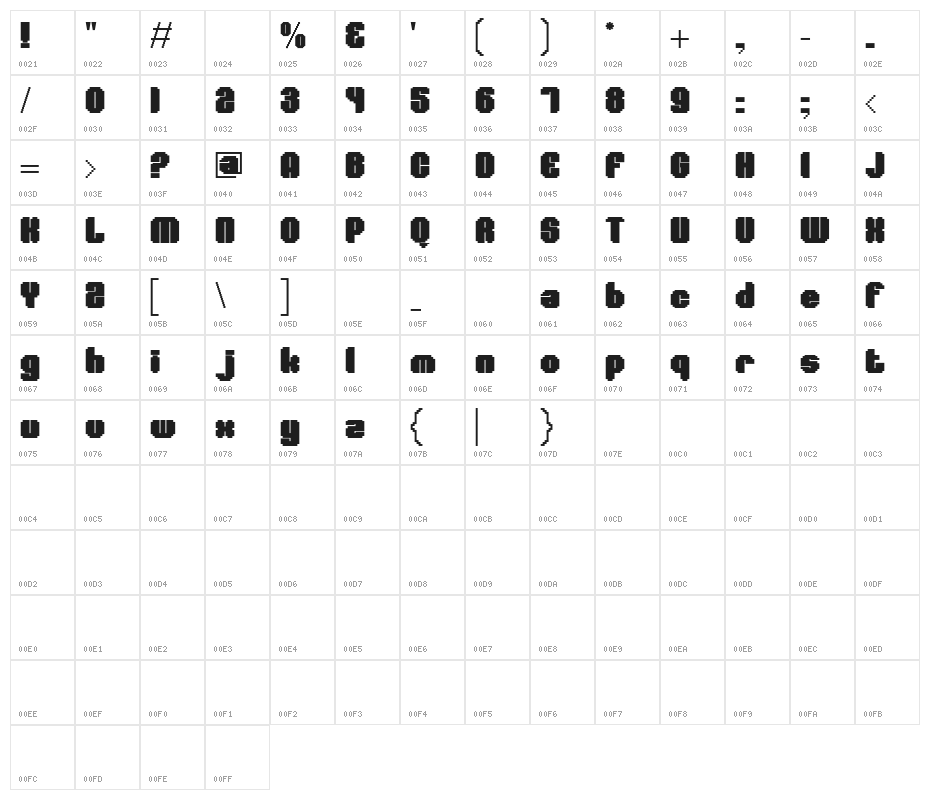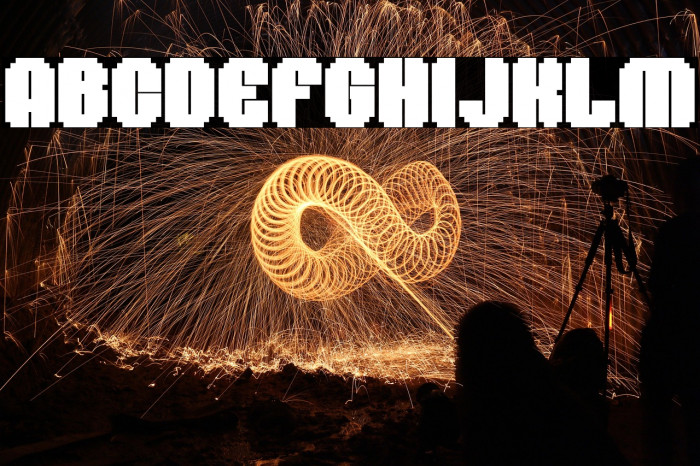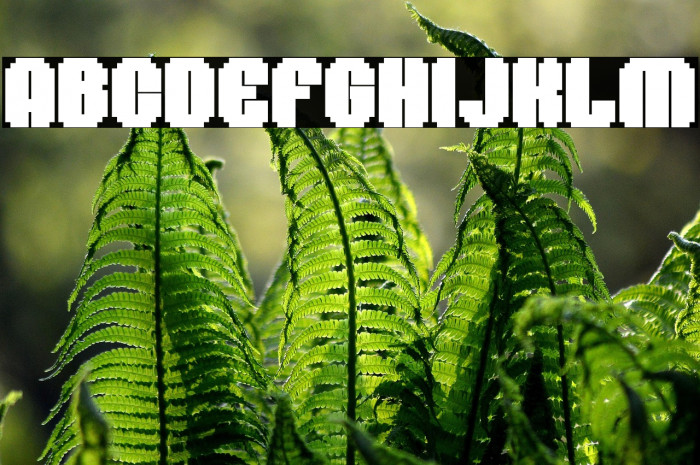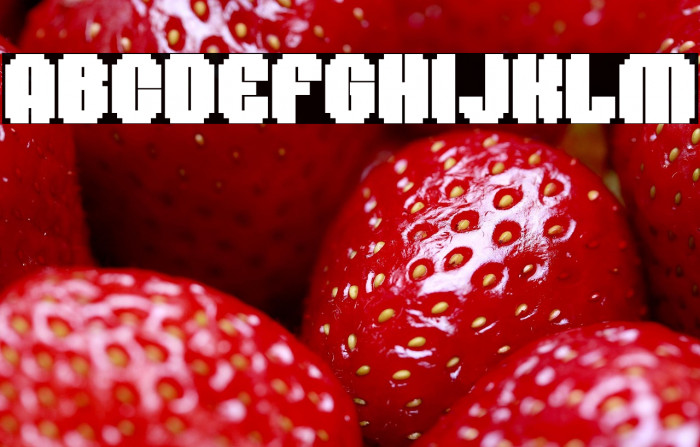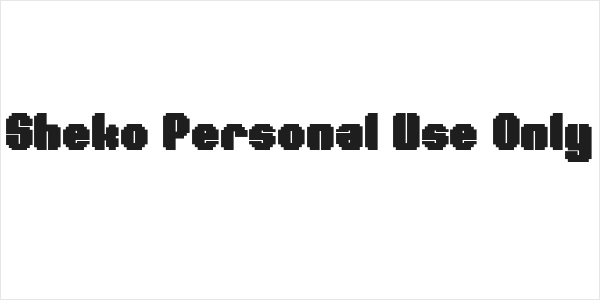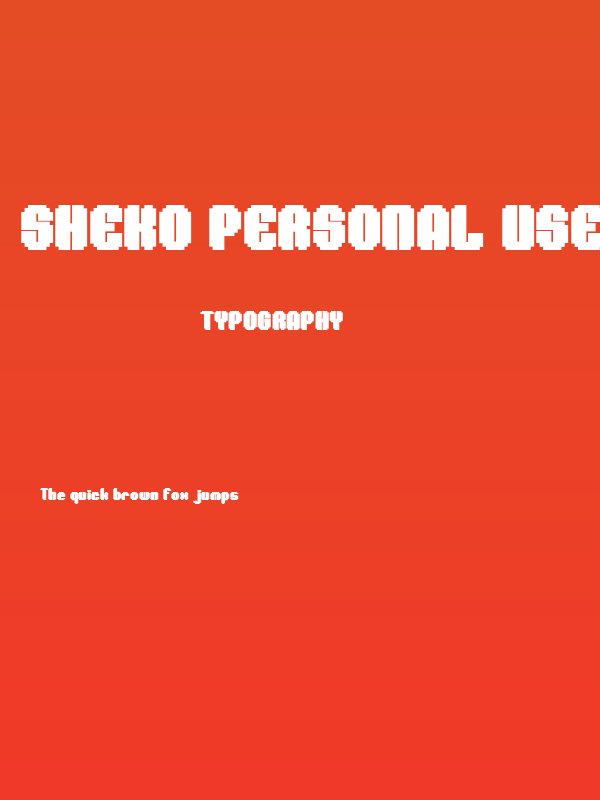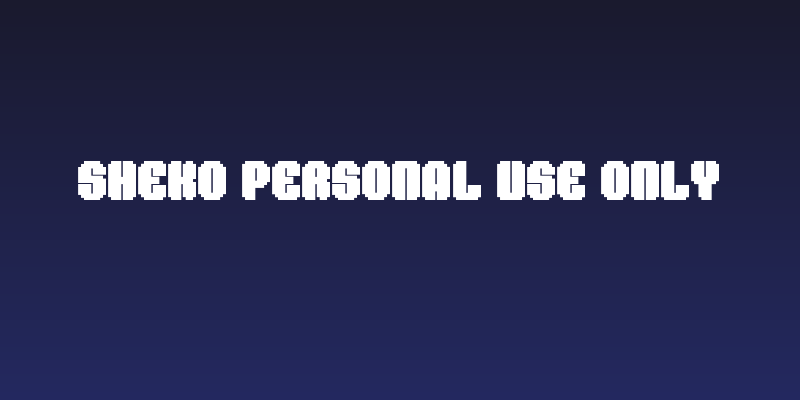
Sheko Personal Use Only Font
This font features a bold, blocky design with a pixelated aesthetic reminiscent of early digital displays or retro video games. The characters are uniformly thick, creating a strong visual impact. The uppercase and lowercase letters maintain a consistent style, with sharp angles and straight edges that contribute to its geometric appearance. Numbers and special characters follow the same design principles, ensuring a cohesive look across all glyphs. The font's distinct style makes it stand out, ideal for projects that require a digital or retro theme.
| Overall Style | Retro, Digital |
| Proposed Projects | Ideal for video game graphics, retro-themed posters, digital art, and tech-related branding. |